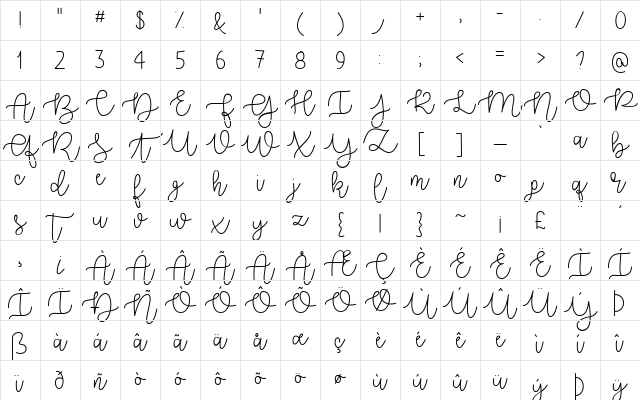
Complete Better Together Demo Regular glyph index. Displaying only characters natively supported by Better Together Demo Regular font.
Better Together Demo is a composed and adaptable typeface that performs quietly and consistently across a wide range of design contexts.